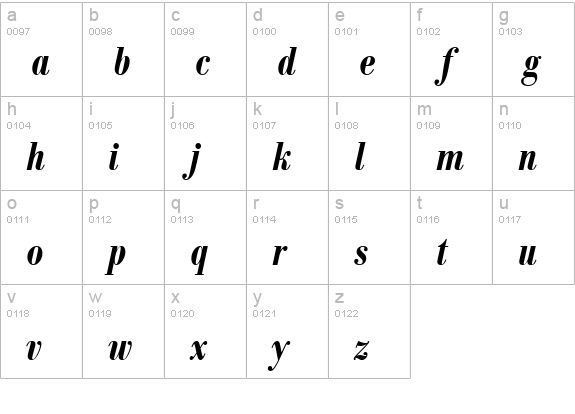
Bodoni BE Medium Condensed Italic Font Details
Bodoni BE Medium Condensed Italic is a balanced, medium-weight, condensed-width, italic variant in the Bodoni typeface family \xE2\x80\x94 well suited to sub-headlines, navigation, and balanced editorial work.
Bodoni BE Medium Condensed Italic font is a sleek and elegant typeface that exudes sophistication and modernity. Its condensed design adds a touch of refinement to any project, making it perfect for headlines, titles, and other attention-grabbing text. The italic styling adds a dynamic flair, adding a sense of movement and energy to your designs. This font is available for free download at FontsMarket.com, allowing you to access its premium quality without any cost. Whether you're working on a branding project, editorial layout, or website design, Bodoni BE Medium Condensed Italic font will elevate your typography and make a lasting impression on your audience. Unlock the power of this font today and enhance your design projects with its timeless beauty and versatility.